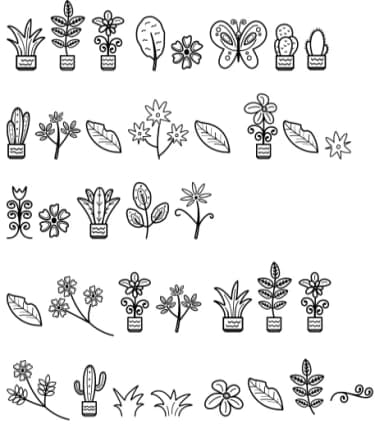
This playful font brings an entire garden straight to your designs. Sneaty Clipart, created by dilbadil, is a dingbat collection brimming with botanical elements that transform ordinary creative projects into something fresh, organic, and authentically handmade.
The collection spans distinct plant-themed glyphs including cacti, layered leaves, blooming flowers, and delicate grass strokes that work beautifully across multiple project types. Spring stationery suites benefit from the variety, as do botanical scrapbooking layouts, handmade gift tags with garden themes, and hand-lettered planner spreads. DIY garden labels gain immediate character, spring greeting card designs feel natural rather than stiff, and nature-focused social media graphics suddenly look like they were created by hand rather than pulled from a template library. The elements also work well for botanical journal illustrations and craft project embellishments.
Each glyph carries that sketch-like quality that makes designs feel intentional and personal rather than mass-produced. The botanical focus means every element works cohesively, building visual interest without jarring contrast. Pair Sneaty Clipart with a clean sans-serif body font or neutral serif to balance the detailed botanicals and give text its proper breathing room. The combination lets your decorated elements take center stage while keeping readability intact. Grab it from Creative Fabrica to start adding natural, character-driven details to your next project.
Sneaty Clipart Font is a versatile dingbats font that works for both headings and body text. Pair it with a contrasting sans-serif or serif font to add visual interest and a clear distinction between titles and body copy.